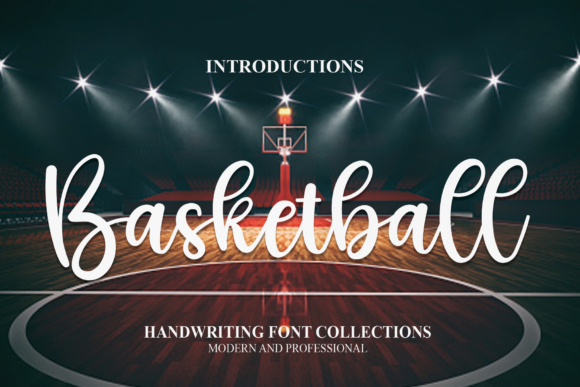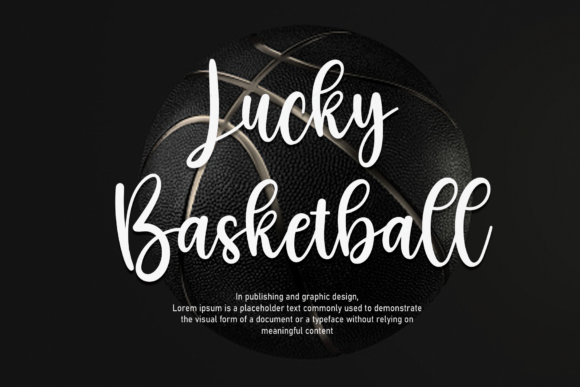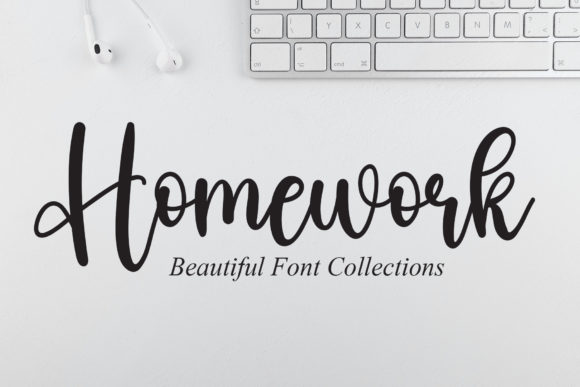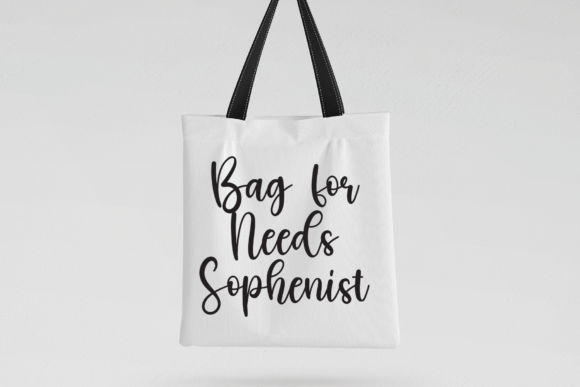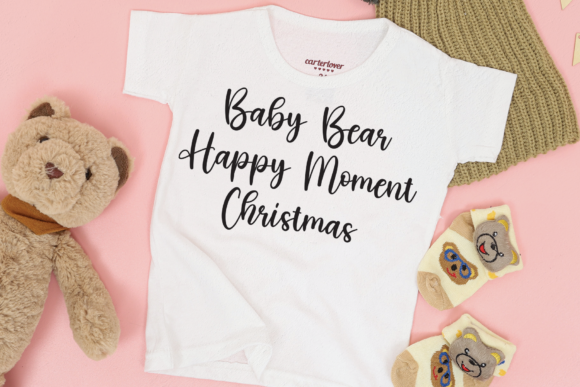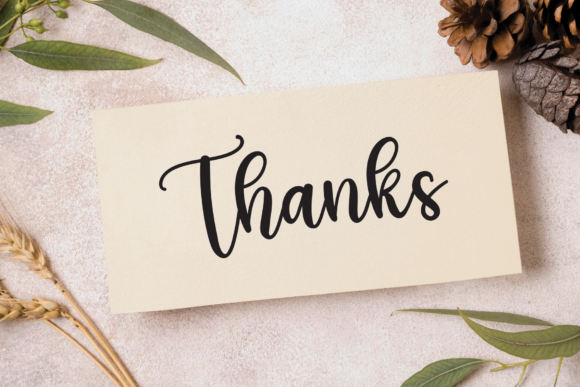
Basketball Font
About Basketball Font
Basketball is a delicate and chic script font. It embodies playfulness and authenticity and is the perfect choice for any formal or informal creation.